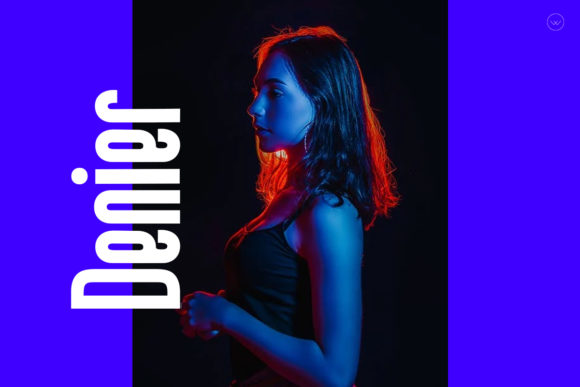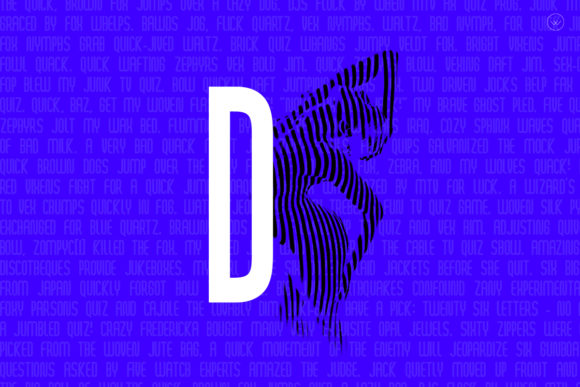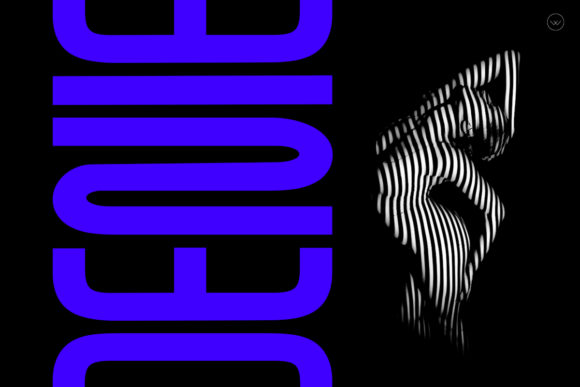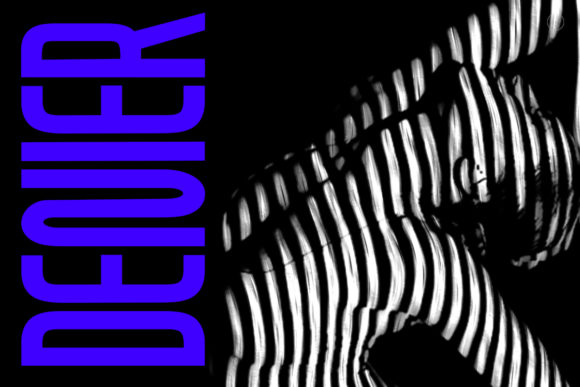
Introducing Denier Font: The Modern and Clean Display Font You Need
Are you tired of using the same old fonts in your designs? Look no further than Denier Font, a modern and clean display font that’s sure to brighten up any project. With its versatility and neat vibe, Denier Font is the perfect addition to any designer’s toolkit.
What is Denier Font?
Denier Font is a display font designed to make a statement. Its clean lines and modern aesthetic make it perfect for a wide range of design applications, from branding and advertising to packaging and digital media. Whether you’re looking to create a bold and eye-catching headline or a subtle and sophisticated text overlay, Denier Font has got you covered.
Key Features of Denier Font
• Modern and Clean Design: Denier Font features a sleek and contemporary design that’s perfect for modern brands and designers.
• Versatile: With its wide range of applications, Denier Font is a versatile font that can be used in everything from print materials to digital media.
• Neat Vibe: Denier Font’s clean lines and simple aesthetic give it a neat and organized vibe that’s perfect for designs that require a professional look and feel.
• Endless Variations: With Denier Font, you can experiment with endless variations to create a unique look that suits your design needs.
Benefits of Using Denier Font
So why choose Denier Font over other display fonts on the market? Here are just a few benefits of using Denier Font in your designs:
• Stand Out from the Crowd: Denier Font’s unique design and modern aesthetic make it a great way to stand out from the crowd and grab attention.
• Professional Look and Feel: Denier Font’s clean lines and simple aesthetic give it a professional look and feel that’s perfect for designs that require a high level of sophistication.
• Easily Readable: Despite its bold and eye-catching design, Denier Font is surprisingly easy to read, making it perfect for use in a wide range of design applications.
• Customizable: With Denier Font, you can experiment with different variations and styles to create a unique look that suits your design needs.
How to Use Denier Font in Your Designs
So how can you start using Denier Font in your designs? Here are a few tips to get you started:
• Experiment with Different Sizes and Styles: Denier Font looks great in a wide range of sizes and styles, so don’t be afraid to experiment and find the perfect combination for your design.
• Pair it with Other Fonts: Denier Font pairs well with a wide range of other fonts, so try combining it with different fonts to create a unique and interesting look.
• Use it for Headlines and Titles: Denier Font is perfect for use in headlines and titles, where its bold and eye-catching design can really make an impact.
• Add it to Your Brand Identity: If you’re looking to update your brand identity, consider adding Denier Font to your toolkit. Its modern and clean design makes it a great fit for modern brands.
In conclusion, Denier Font is a modern and clean display font that’s perfect for designers and crafters looking to add a touch of sophistication and elegance to their designs. With its versatility, neat vibe, and endless variations, Denier Font is a great addition to any designer’s toolkit. So why wait? Download Denier Font today and start experimenting with its endless possibilities!